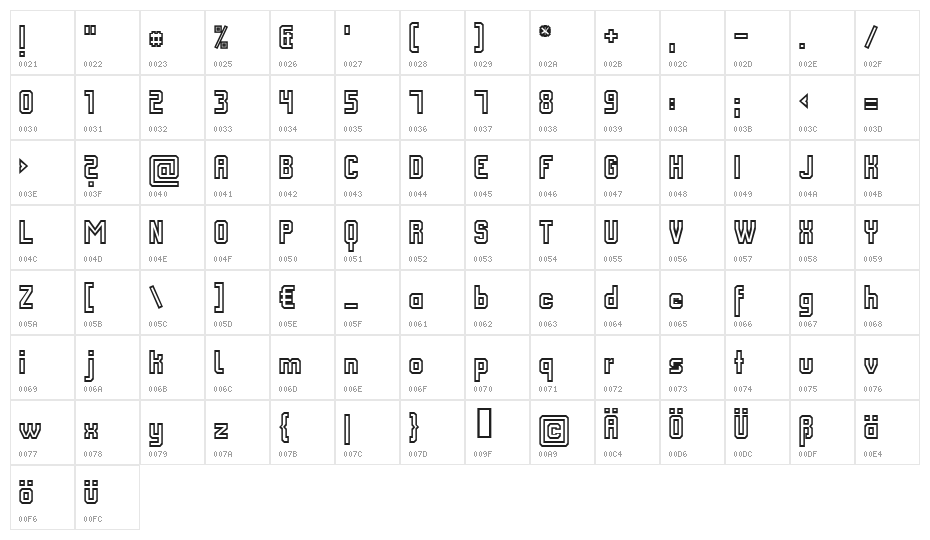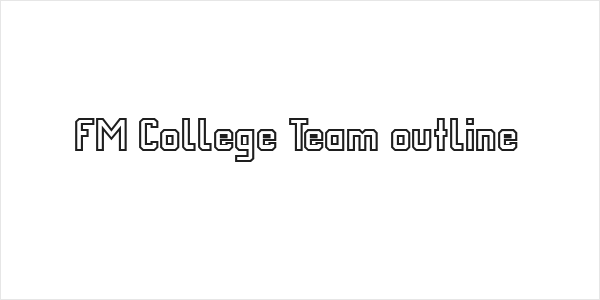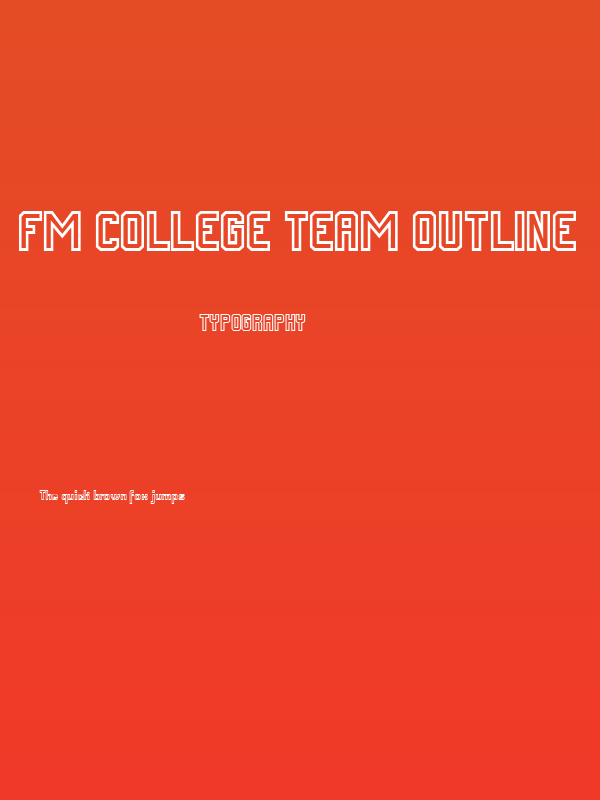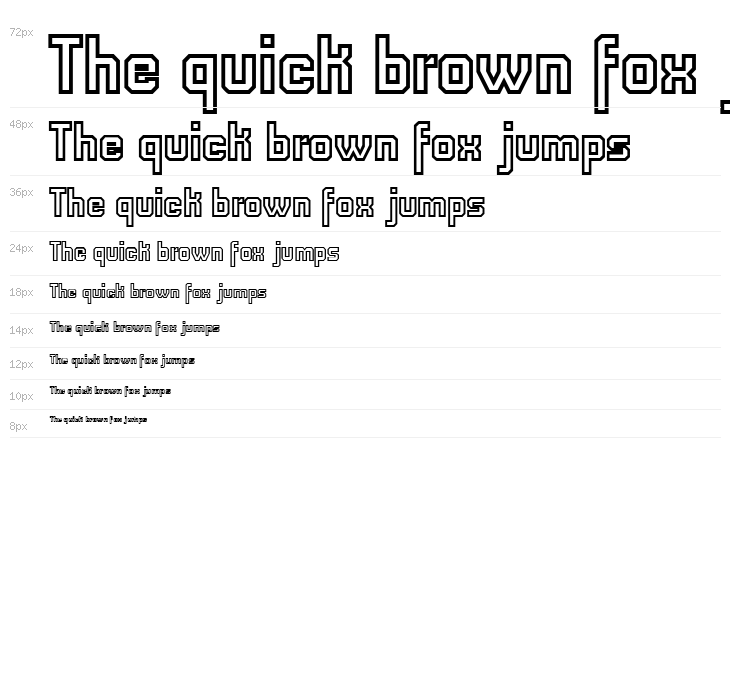
FM College Team outline Font
FM College Team outline Description
This font features a bold, geometric outline style that evokes a collegiate or sports team aesthetic. The characters are constructed with strong, angular lines and a uniform thickness, giving them a robust and impactful appearance. The uppercase and lowercase letters maintain a consistent design, with a focus on clarity and readability. The numerals and special characters follow the same structural theme, ensuring a cohesive look across all elements. This font's outline design adds a unique touch, making it stand out in various applications.
| Proposed Projects | Ideal for sports team branding, college event posters, merchandise designs, and any project requiring a strong, impactful typeface. |